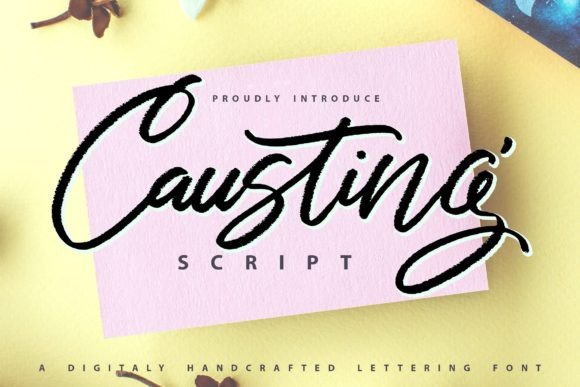
Immerse yourself in the captivating world of Causting Font, a masterpiece crafted by the renowned Vunira, where elegance and charm intertwine. This enchanting script font evokes the nostalgic charm of a handwritten marker board, beckoning you to unleash your creativity.
With Causting Font, your words will dance across the page or screen like a whisper from the heart. Effortlessly pen heartfelt greeting cards that convey love and warmth, design invitations that exude a touch of magic, or create motivational quotes that inspire and uplift the soul.
This font is meticulously designed with intricate glyphs and ligatures, offering you a treasure trove of expressive options. With Causting Font, your creations will captivate and enchant, leaving an unforgettable mark on all who behold them.
But beyond its aesthetic allure, Causting Font is your trusty companion in the art of self-expression. Its versatility knows no bounds, whether you seek to forge a lasting memory through a wedding sign that reflects the joy of your special day or add a touch of whimsy to your social media presence.
Embrace the limitless possibilities that await with Causting Font. Let your creativity flourish, your messages resonate, and your imagination soar. Immerse yourself in the enchantment and watch your words blossom into a captivating tapestry of emotions and memories.